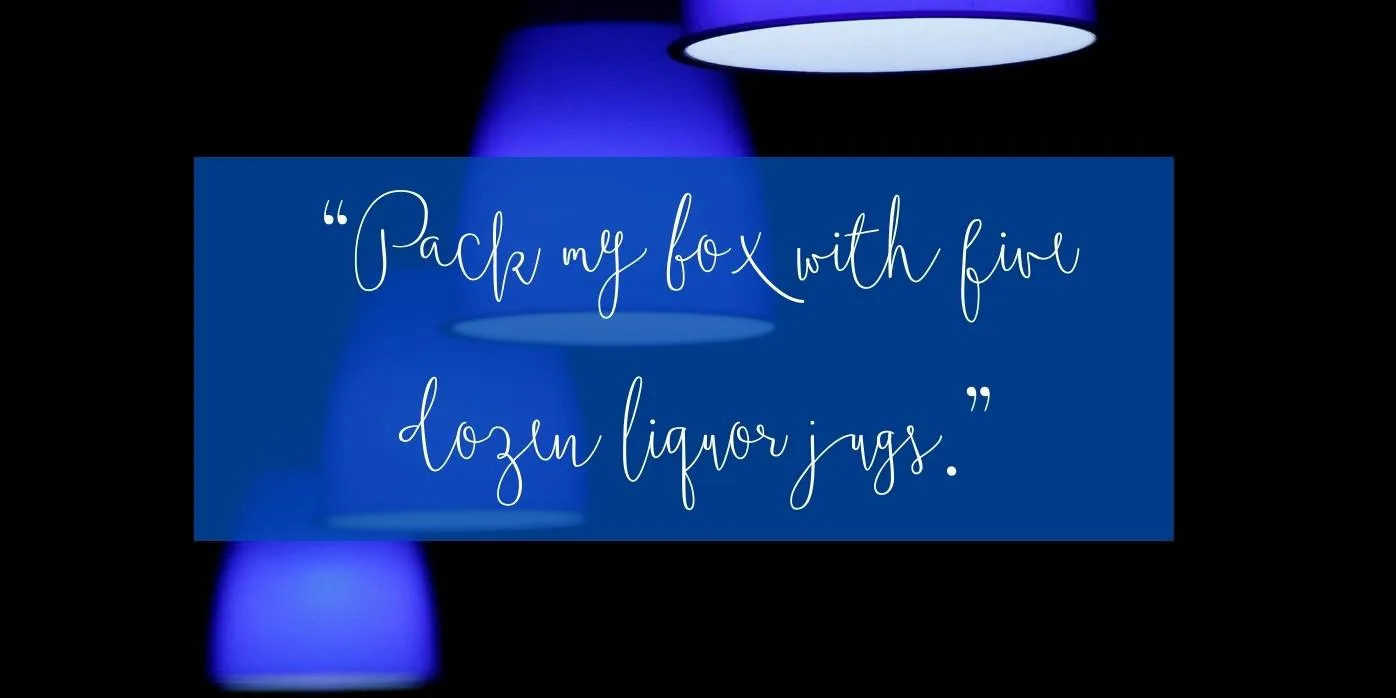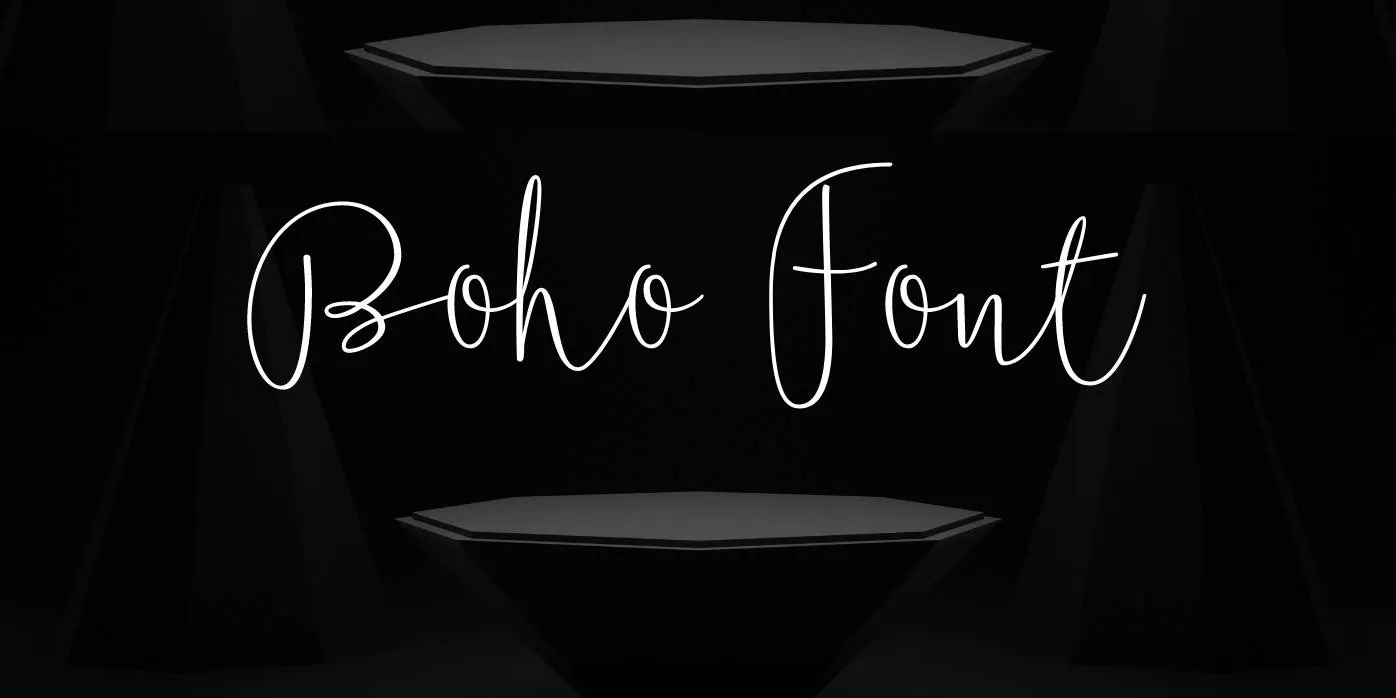
Boho Font
Boho Font is a typeface that was created to give a natural, “handmade” feel to your text. This typeface was developed by Guisela Mendoza. It belongs to the Calligraphy typeface. This cute typeface was released in 2015.
It is perfect for creating unique and stylish documents, invitations, and more. This stylish font come in 26 special styles and 4 weights are Regular, Italic, Bold and Bold Italic. Altogether there are 104 different characters in the Boho Font. It supports all Latin-based languages.